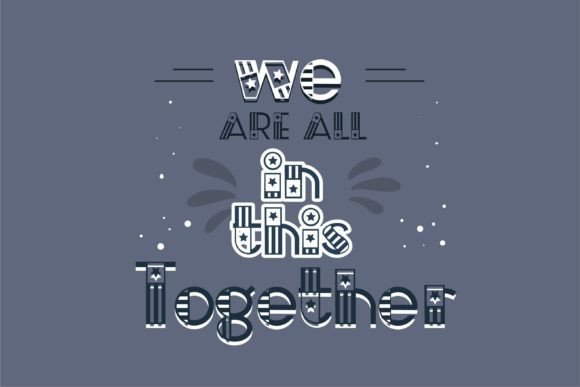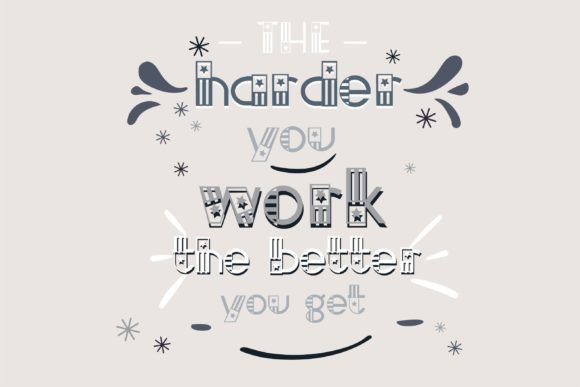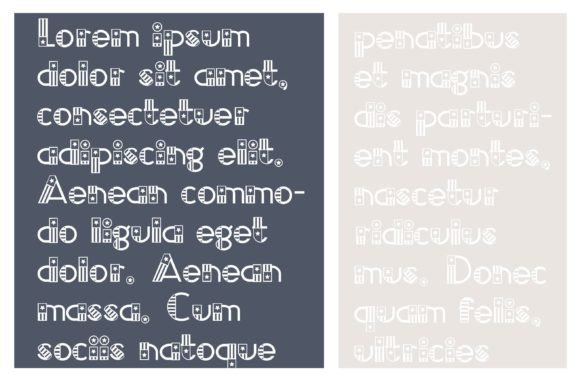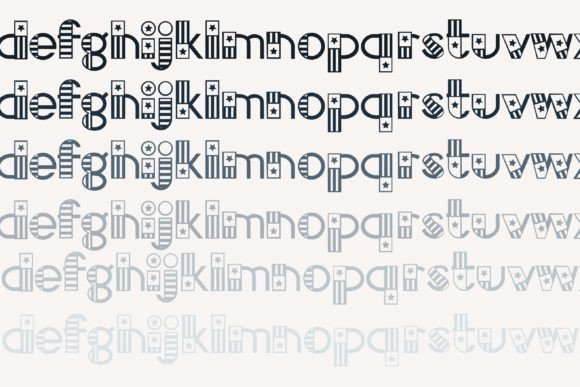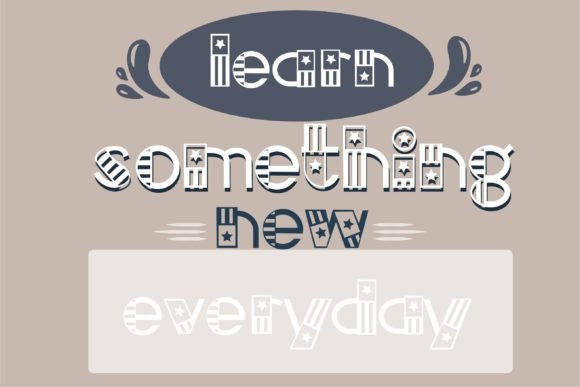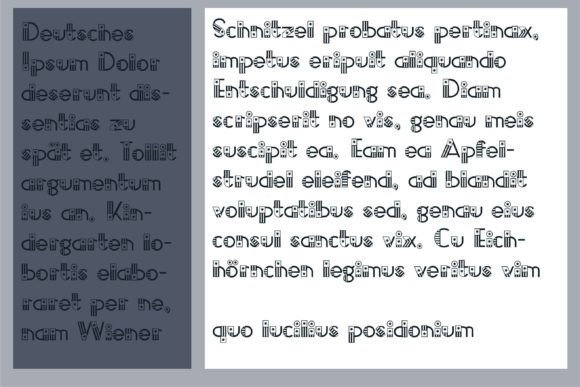
Introducing Central Patriot Font: Elevate Your American-Themed Projects with a Whimsical Touch
Are you a designer, crafter, or DIY enthusiast looking for a unique and eye-catching font to add a touch of patriotism to your American-themed projects? Look no further than Central Patriot Font! This whimsical display font is designed to bring a burst of energy and excitement to your designs, and we’re excited to share its features and benefits with you.
What is Central Patriot Font?
Central Patriot Font is a carefully crafted display font that embodies the spirit of American patriotism. With its bold, playful, and whimsical design, this font is perfect for creating eye-catching headlines, titles, and graphics for a wide range of projects, from craft designs and party decorations to branding and advertising materials.
Key Features of Central Patriot Font
- Whimsical Design: Central Patriot Font boasts a unique and imaginative design that adds a touch of playfulness to your projects.
- Patriotic Spirit: The font’s bold and vibrant design elements evoke the spirit of American patriotism, making it perfect for Independence Day, Memorial Day, and other American-themed celebrations.
- Display Font: Central Patriot Font is optimized for display use, making it ideal for headlines, titles, and short text passages.
Central Patriot Font is versatile and can be used in a variety of projects, including:
- Craft Designs: Add a touch of patriotism to your craft designs, such as paper crafts, iron-on designs, and sublimation projects.
- Party Decorations: Create eye-catching party decorations, including banners, garlands, and signs, with Central Patriot Font.
- Branding and Advertising: Use Central Patriot Font to create bold and attention-grabbing branding and advertising materials, such as logos, business cards, and flyers.
- Social Media Graphics: Add a touch of patriotism to your social media graphics, including Facebook posts, Instagram stories, and Twitter headers.
- Unique Design: Central Patriot Font boasts a unique and imaginative design that will set your projects apart from the crowd.
- High-Quality: This font is carefully crafted to ensure high-quality and crisp lines, making it perfect for both digital and print projects.
- Easy to Read: Despite its bold and playful design, Central Patriot Font is easy to read, making it perfect for headlines and titles.